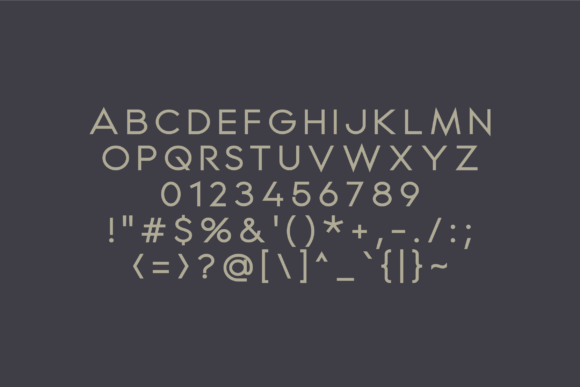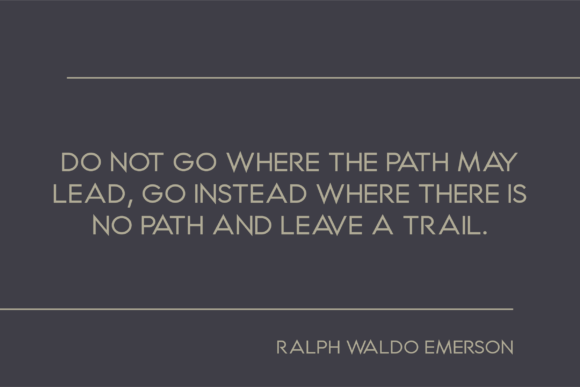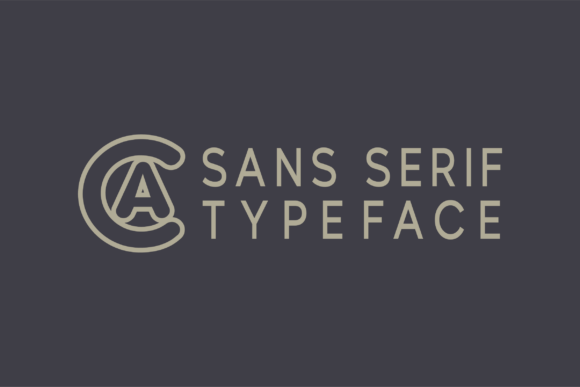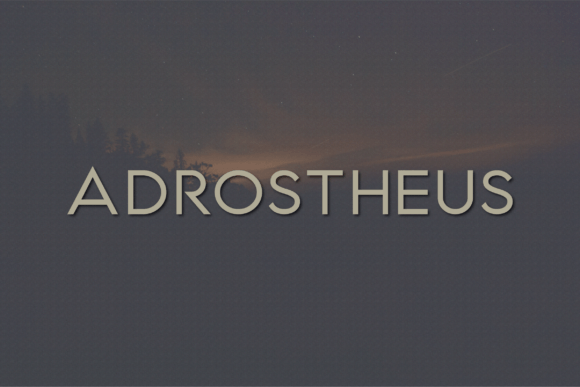
Introducing Adrostheus: The Ultimate Modern Sans Serif Typeface
In the world of typography, a font can make all the difference in the visual impact of a design. For designers and crafters looking for a modern, classy sans serif typeface, Adrostheus is the perfect solution. This versatile font is designed to elevate your designs, whether you’re working on logos, weddings, invitations, quotes, advertisements, print, magazines, or more.
What is Adrostheus Font?
Adrostheus is a sans serif typeface that boasts a clean and modern aesthetic. It features upper characters, numbers 0-9, and a range of punctuation and symbols, making it an excellent choice for a wide range of design projects. The font’s sleek lines and minimalist approach ensure that it remains legible, even at smaller sizes.
Key Features of Adrostheus Font
• Modern Sans Serif Design: Adrostheus features a contemporary sans serif design that is perfect for designers looking for a clean and minimalist aesthetic.
• Upper Characters, Numbers, and Symbols: The font includes upper characters, numbers 0-9, and a range of punctuation and symbols, making it versatile for various design projects.
• Extremely Versatile: Adrostheus is suitable for a wide range of applications, including logos, weddings, invitations, quotes, advertisements, print, magazines, and more.
Use Cases for Adrostheus Font
Adrostheus is an incredibly versatile font that can be used in various design projects. Here are some use cases where Adrostheus shines:
• Logo Design: Create a lasting impression with Adrostheus. Its modern design ensures that your logo stands out and remains memorable.
• Weddings and Invitations: Add a touch of elegance to your wedding invitations, save-the-date cards, and other wedding-related designs with Adrostheus.
• Quotes and Typography: Use Adrostheus to create visually stunning quotes, typographic posters, and social media graphics.
• Advertisements and Marketing: Adrostheus is perfect for creating eye-catching advertisements, brochures, and marketing materials that require a modern and clean aesthetic.
• Print and Magazines: Use Adrostheus in your print designs, such as magazines, newspapers, and books, to add a touch of sophistication.
Why Choose Adrostheus Font?
With so many fonts available, why choose Adrostheus? Here are a few reasons why Adrostheus stands out:
• Unique and Modern Design: Adrostheus boasts a unique and modern design that sets it apart from other sans serif typefaces.
• Highly Legible: The font’s clean lines and minimalist approach ensure that it remains legible, even at smaller sizes.
• Versatile and Adaptable: Adrostheus can be used in a wide range of design projects, making it an excellent addition to any designer’s font library.
Tips for Using Adrostheus Font
To get the most out of Adrostheus, here are some tips for using the font:
• Experiment with Font Sizes: Adrostheus remains legible at various font sizes, so experiment with different sizes to find the perfect fit for your design.
• Pair with Other Fonts: Adrostheus pairs well with other fonts, so don’t be afraid to experiment with font combinations to create a unique look.
• Use in Digital and Print Designs: Adrostheus is suitable for both digital and print designs, making it an excellent choice for designers who work across multiple mediums.
Font Name Adrostheus Font
Author A Christie
In conclusion, Adrostheus is an exceptional modern sans serif typeface that is perfect for designers and crafters looking for a versatile and elegant font. With its clean design, high legibility, and adaptability, Adrostheus is an excellent addition to any designer’s font library. Whether you’re working on logos, weddings, invitations, quotes, advertisements, print, magazines, or more, Adrostheus is sure to elevate your designs and leave a lasting impression.